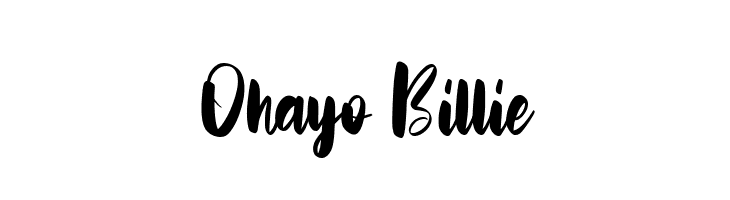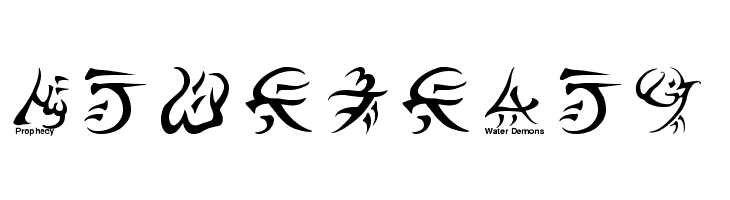
A bold, expressive handwritten font with fluid strokes and dynamic style.
A bold, italic, and condensed font with a modern and dynamic style.
A bold, geometric font with a retro aesthetic and unique cutouts.
A modern, dashed-line font with a playful and cohesive design.
A bold, 3D, semi-italic font with a playful, comic book style.
A bold, shadowed font with a playful, artistic style.
A decorative, abstract font with tribal and geometric influences.
A bold, playful font with a shadow effect and rounded, connected letters.
A bold, high-contrast font with a modern and decorative style.
A bold, hollow font with a modern, geometric design.